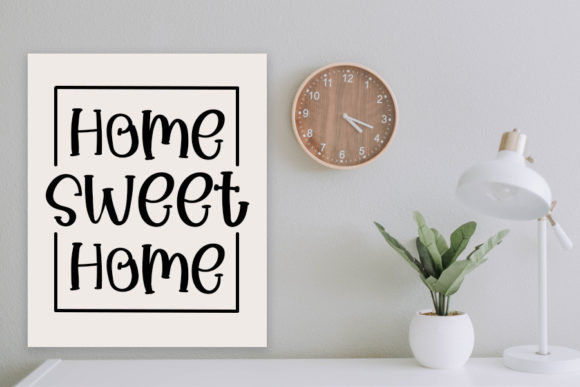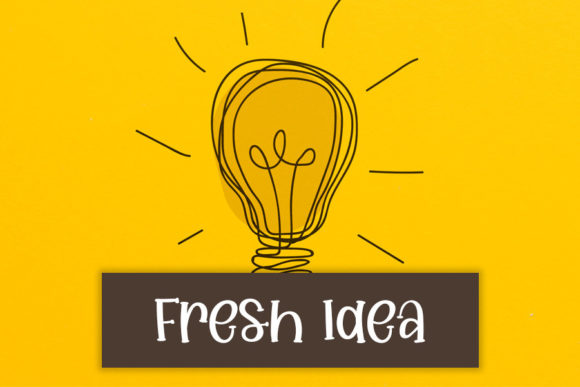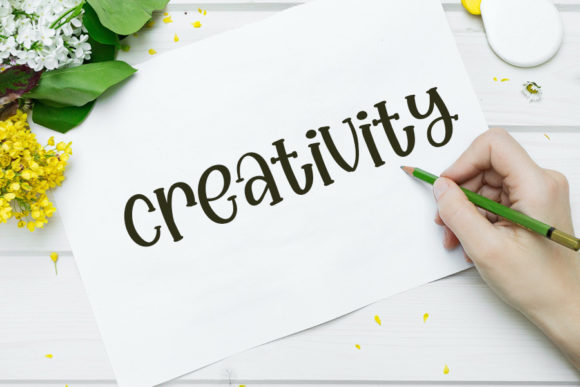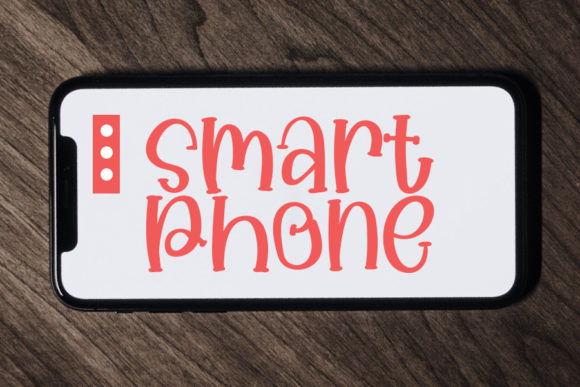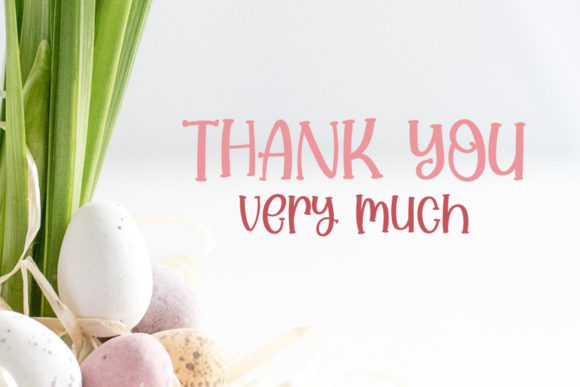
Baby Sweet Font: The Perfect Addition to Your Design Projects
Are you a designer or crafter looking for a font that can add a touch of sweetness and playfulness to your projects? Look no further than the Baby Sweet Font! This beautiful, flowing, and festive display font is perfect for a variety of design ideas and is sure to make your projects stand out.
What is Baby Sweet Font?
Baby Sweet Font is a sweet and charming display font that is designed to add a friendly and quirky touch to your projects. Its gentle and flowing curves make it perfect for use in a variety of designs, from baby shower invitations and nursery decor to greeting cards and party decorations.
Key Features of Baby Sweet Font
- Sweet and Playful Design: Baby Sweet Font has a sweet and playful design that is sure to capture the attention of your audience. Its unique and quirky style makes it perfect for designers and crafters who want to add a personal touch to their projects.
- Flowing and Festive: The font has a flowing and festive feel that makes it perfect for use in a variety of designs, from formal to informal. Its elegant curves and lines make it suitable for use in high-end designs, while its playful style makes it perfect for more casual projects.
- Highly Versatile: Baby Sweet Font is highly versatile and can be used in a variety of design projects, including baby shower invitations, nursery decor, greeting cards, party decorations, and more.
- Easy to Read: Despite its playful and whimsical design, Baby Sweet Font is easy to read and understand, making it perfect for use in designs where clarity is important.
How to Use Baby Sweet Font
Baby Sweet Font is easy to use and can be incorporated into a variety of design projects. Here are a few ideas to get you started:
- Baby Shower Invitations: Use Baby Sweet Font to create adorable and playful baby shower invitations that will set the tone for a fun and festive celebration.
- Nursery Decor: Add a touch of sweetness and playfulness to nursery decor with Baby Sweet Font. Use it to create wall art, decals, and other decorative items that will make the nursery a special and welcoming place for baby.
- Greeting Cards: Use Baby Sweet Font to create unique and personalized greeting cards for special occasions, such as birthdays, holidays, and baby showers.
- Party Decorations: Add a touch of festivity and fun to party decorations with Baby Sweet Font. Use it to create banners, signs, and other decorative items that will make the party a memorable one.
Why Choose Baby Sweet Font?
There are many reasons why Baby Sweet Font is a great choice for designers and crafters. Here are a few:
- Unique and Playful Design: Baby Sweet Font has a unique and playful design that will make your projects stand out from the crowd.
- Highly Versatile: The font is highly versatile and can be used in a variety of design projects, making it a great addition to your font collection.
- Easy to Read: Despite its playful design, Baby Sweet Font is easy to read and understand, making it perfect for use in designs where clarity is important.